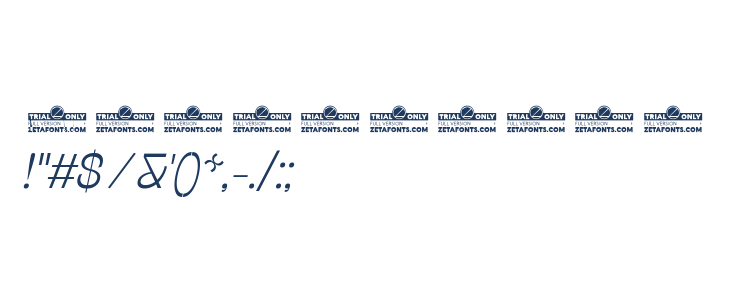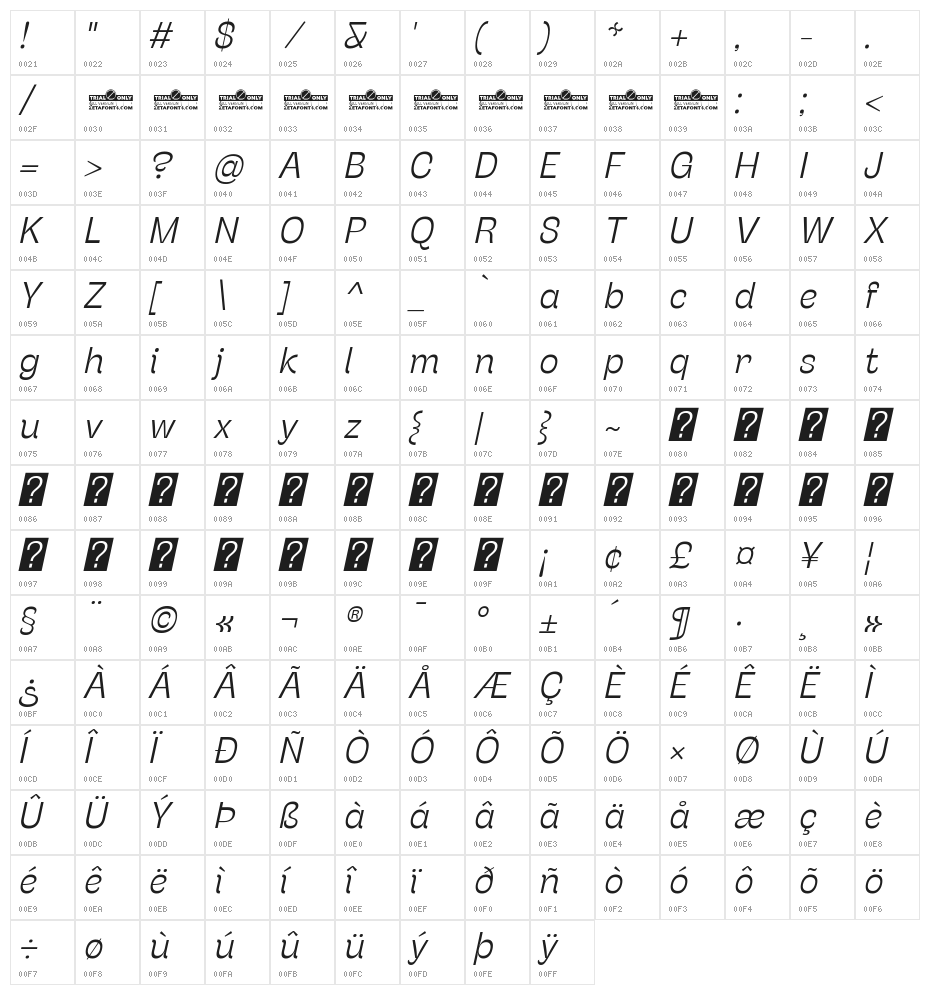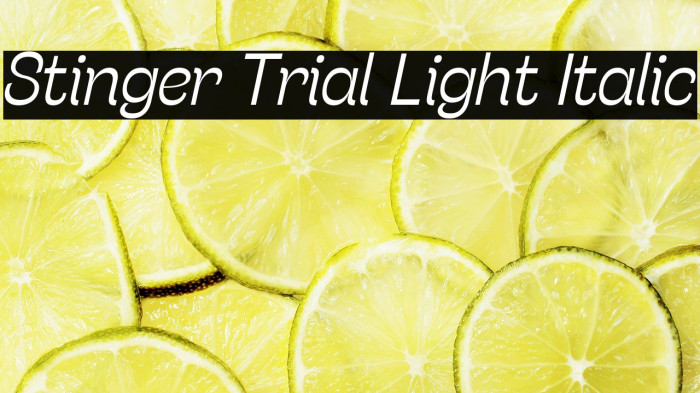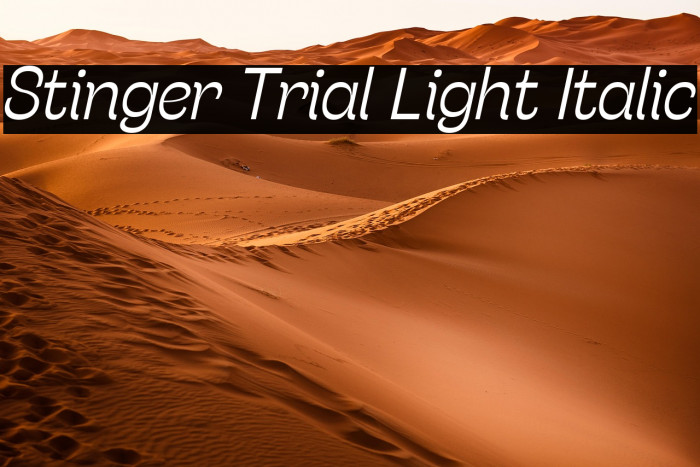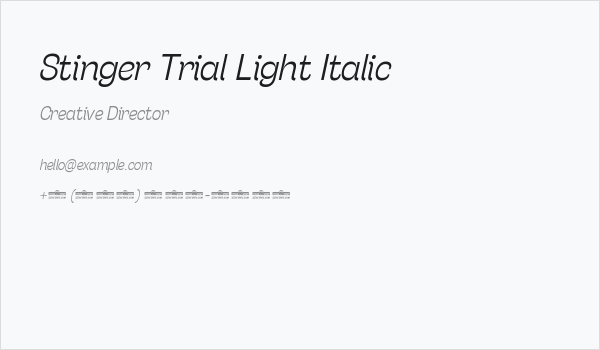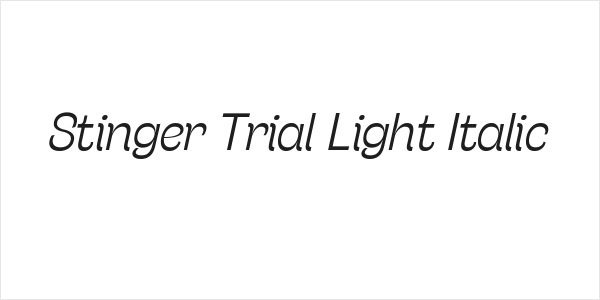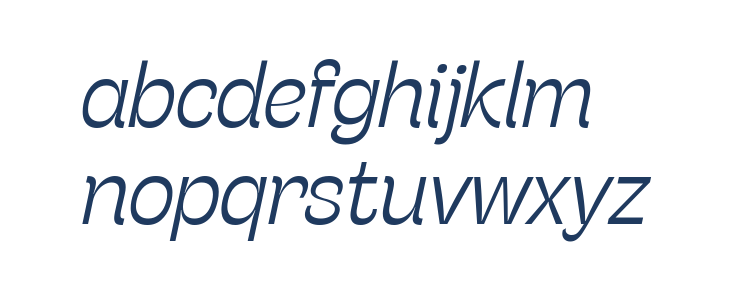
Stinger Trial Light Italic Font
Stinger Trial Light Italic Description
This font features a sleek and modern design with a light weight and italic style. The characters are elegantly slanted, providing a sense of motion and fluidity. The uppercase and lowercase letters maintain a consistent stroke width, contributing to a clean and sophisticated appearance. The numerals and special characters are designed to complement the alphabet, ensuring readability and aesthetic harmony. This font is ideal for projects that require a contemporary and stylish look, such as branding, advertising, and editorial design.
| Proposed Projects | Ideal for branding, advertising, editorial design, and modern web design. |